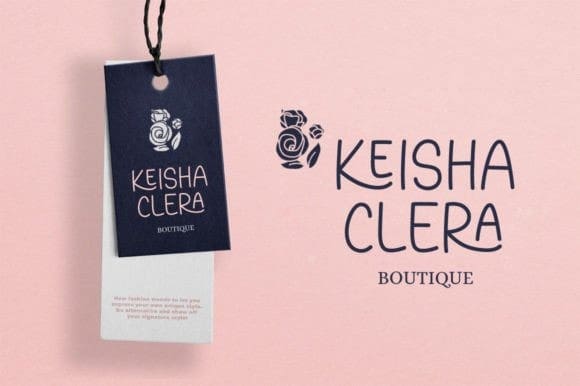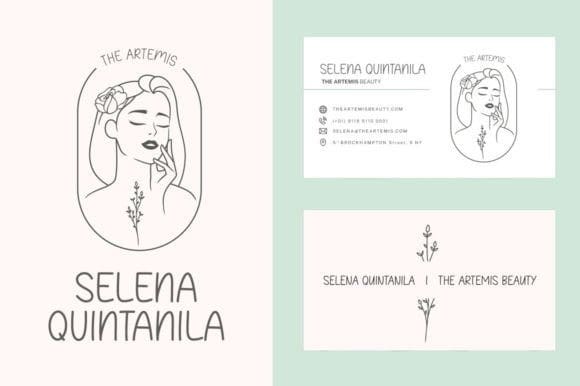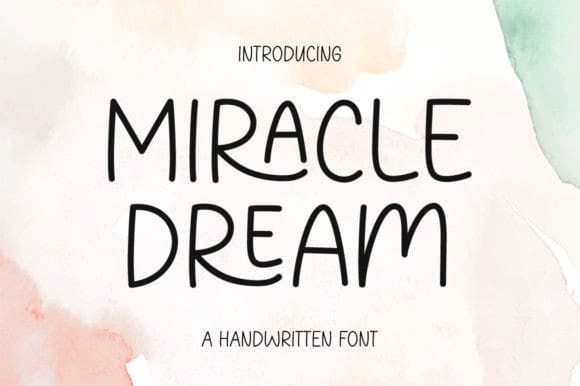
Miracle Dream Font
Miracle Dream Font is a cute and simple-lettered handwritten font perfect for all the chalkboard quotes and teaching materials you wish to create! Its authentic look will add a personal and realistic feel to your designs.